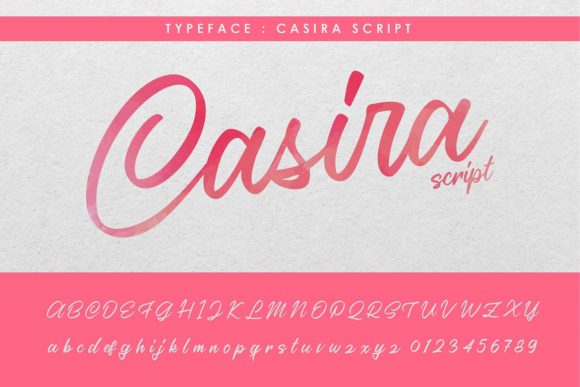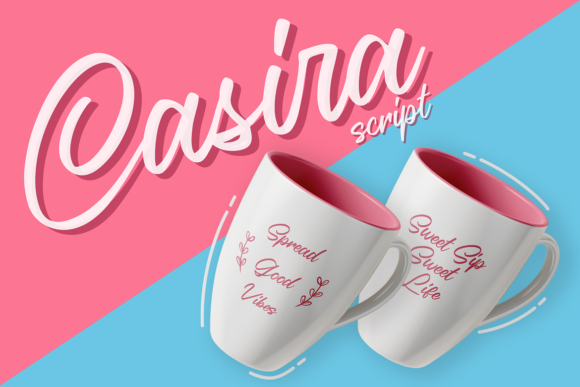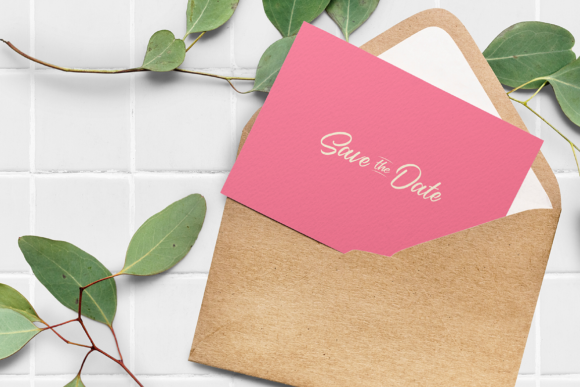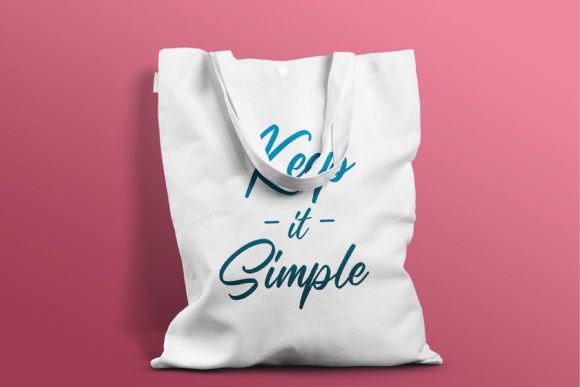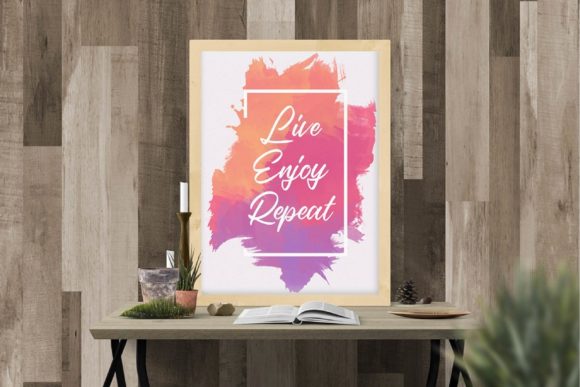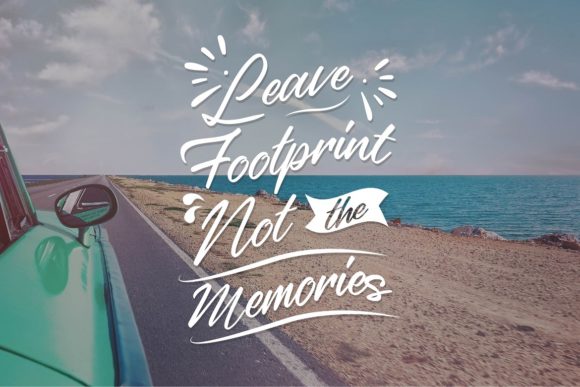
Casira Font: Elevate Your Designs with a Timeless Handwritten Touch
In the world of typography, fonts play a crucial role in conveying the tone and aesthetic of a design. For designers and crafters seeking a unique and elegant touch, the Casira font stands out as an exceptional choice. This incredibly distinct, delicate, and timeless handwritten font has the power to transform any design into a masterpiece. In this article, we’ll explore the beauty of Casira and how it can elevate your wedding invitations, thank you cards, quotes, greeting cards, logos, business cards, and more.
The Beauty of Casira Font
Casira is more than just a font; it’s a statement piece. Its delicate strokes and elegant curves give it a timeless quality that suits a wide range of design applications. Whether you’re creating a romantic wedding invitation or a professional business card, Casira adds a touch of sophistication and whimsy. The font’s unique character set and flowing script make it perfect for designs that require a personal and human touch.
Wedding planners, event designers, and stationery enthusiasts will adore Casira for its romantic and whimsical feel. The font’s elegant appearance makes it ideal for:
- Wedding invitations: Set the tone for your special day with Casira’s beautiful script.
- Thank you cards: Express your gratitude with a personal touch.
- Event announcements: Create eye-catching invitations for baby showers, bridal showers, and more.
Ideal for Quotes and Greeting Cards
Casira’s flowing script also makes it perfect for designs that feature quotes, poems, or heartfelt messages. Add a touch of elegance to your:
- Quote designs: Make inspirational quotes, love quotes, or motivational quotes stand out.
- Greeting cards: Create beautiful birthday cards, Christmas cards, or get-well cards.
Elevate Your Brand with Casira
Business owners and entrepreneurs, take note! Casira can also be used to create stunning logos, business cards, and marketing materials. The font’s unique character set and elegant appearance make it perfect for:
- Logos: Create a memorable brand identity with Casira’s distinctive script.
- Business cards: Stand out from the competition with a beautifully designed card.
- Marketing materials: Add a touch of sophistication to your brochures, flyers, and more.
Why Choose Casira Font?
So, what sets Casira apart from other fonts? Here are just a few reasons why designers and crafters love this beautiful handwritten font:
- Unique and distinctive: Casira’s elegant script is sure to turn heads.
- Timeless and versatile: Suitable for a wide range of design applications.
- Easy to read: Despite its delicate nature, Casira remains clear and legible.
Get Creative with Casira
In conclusion, Casira font is a beautiful and versatile addition to any designer’s toolkit. Its unique character set, elegant appearance, and timeless quality make it perfect for a wide range of applications. Whether you’re creating wedding invitations, logos, or greeting cards, Casira is sure to elevate your designs and leave a lasting impression.